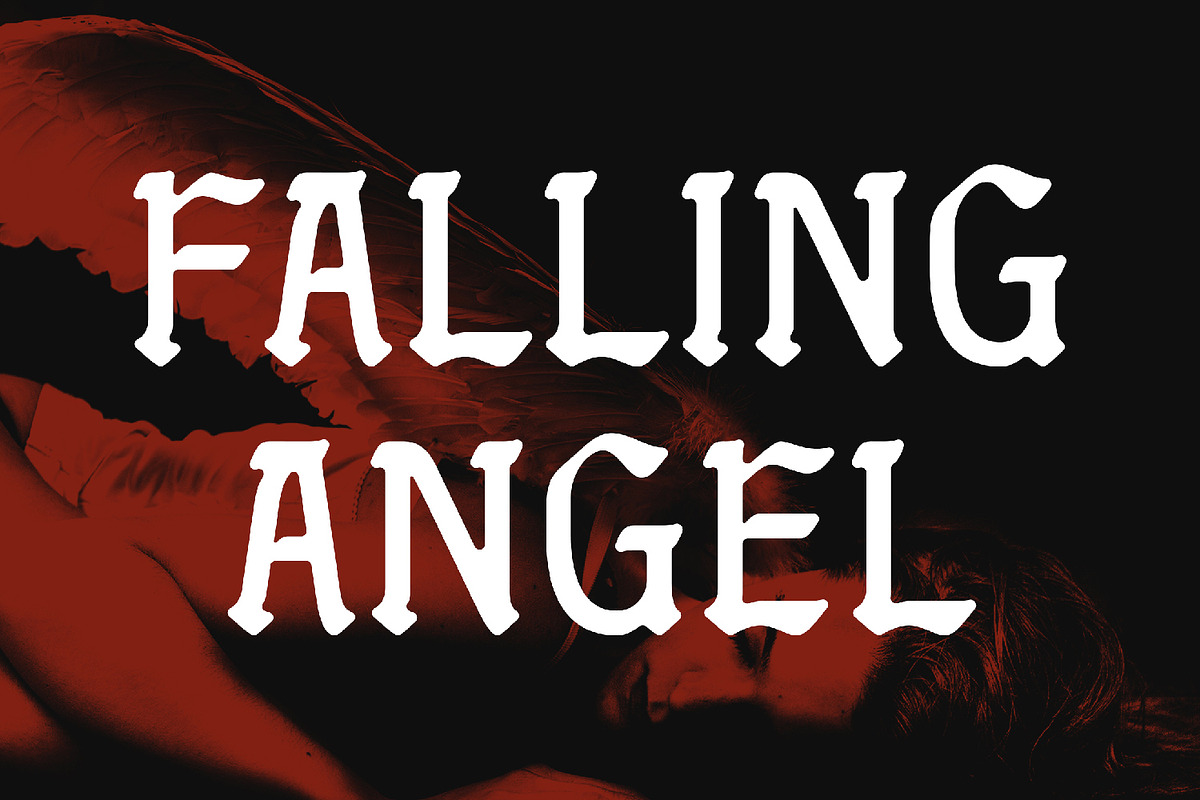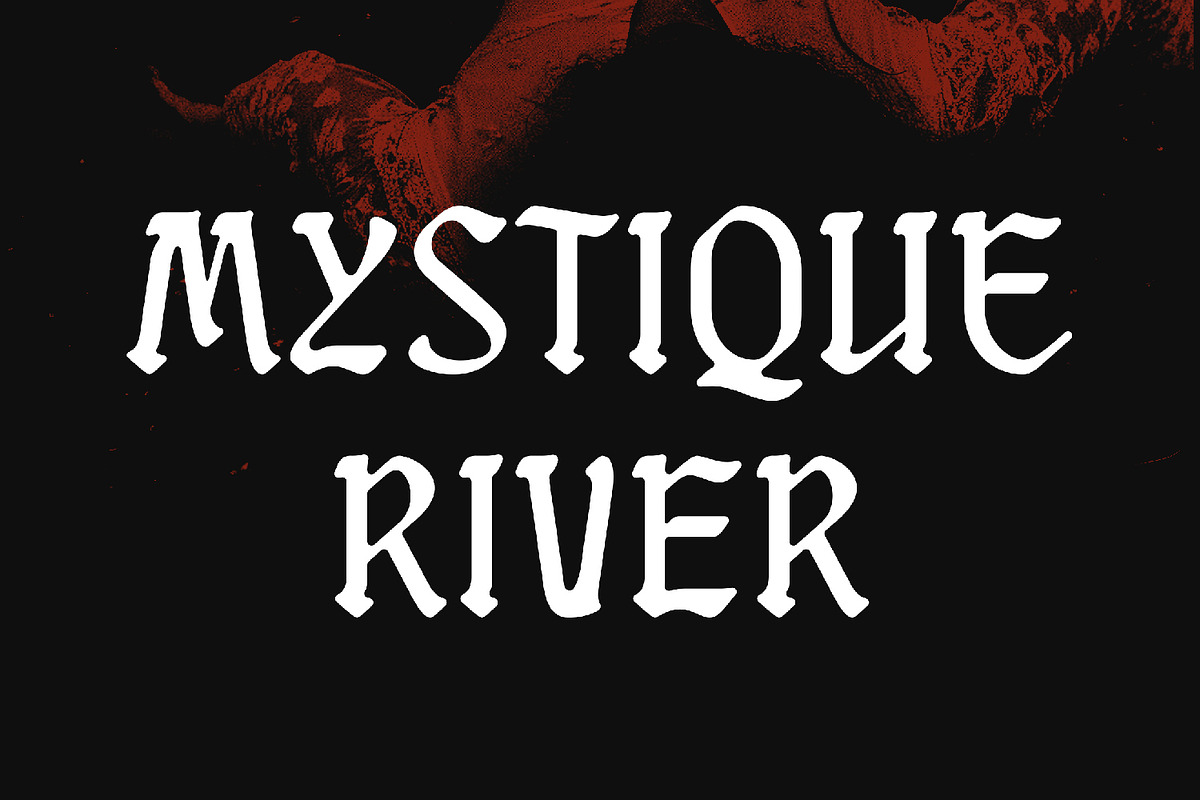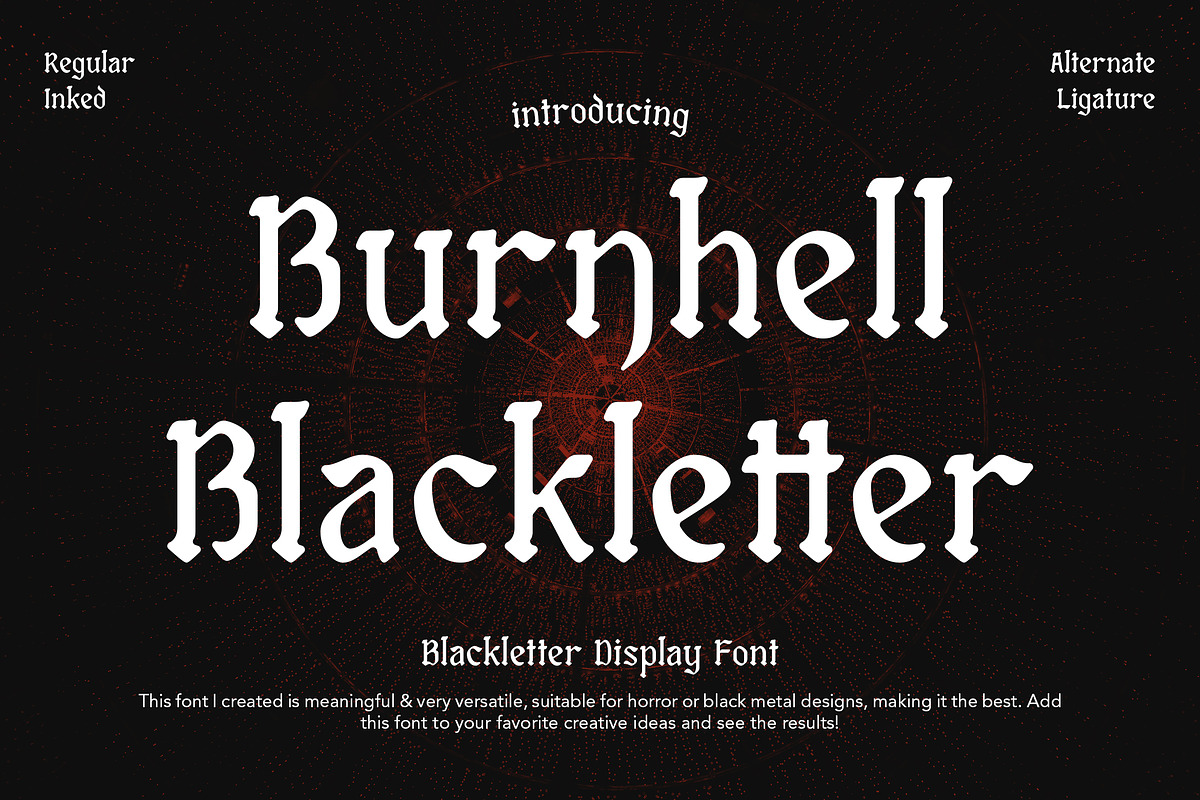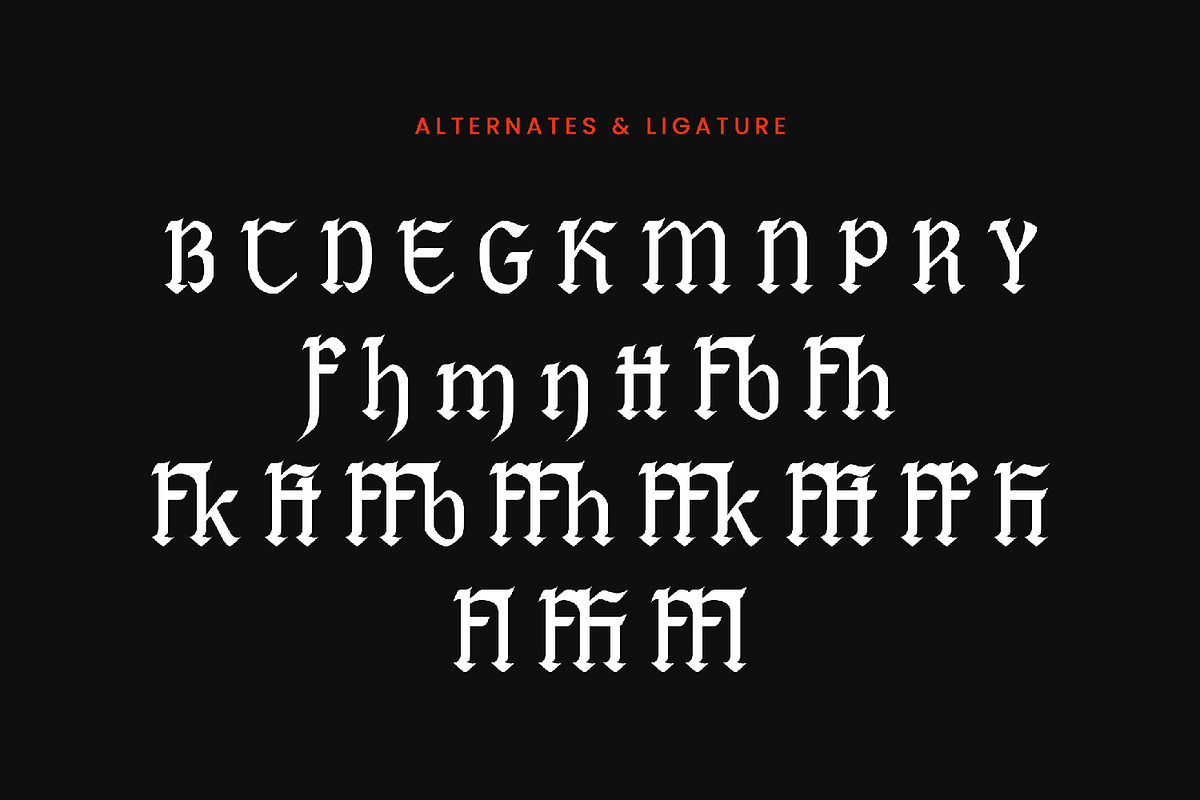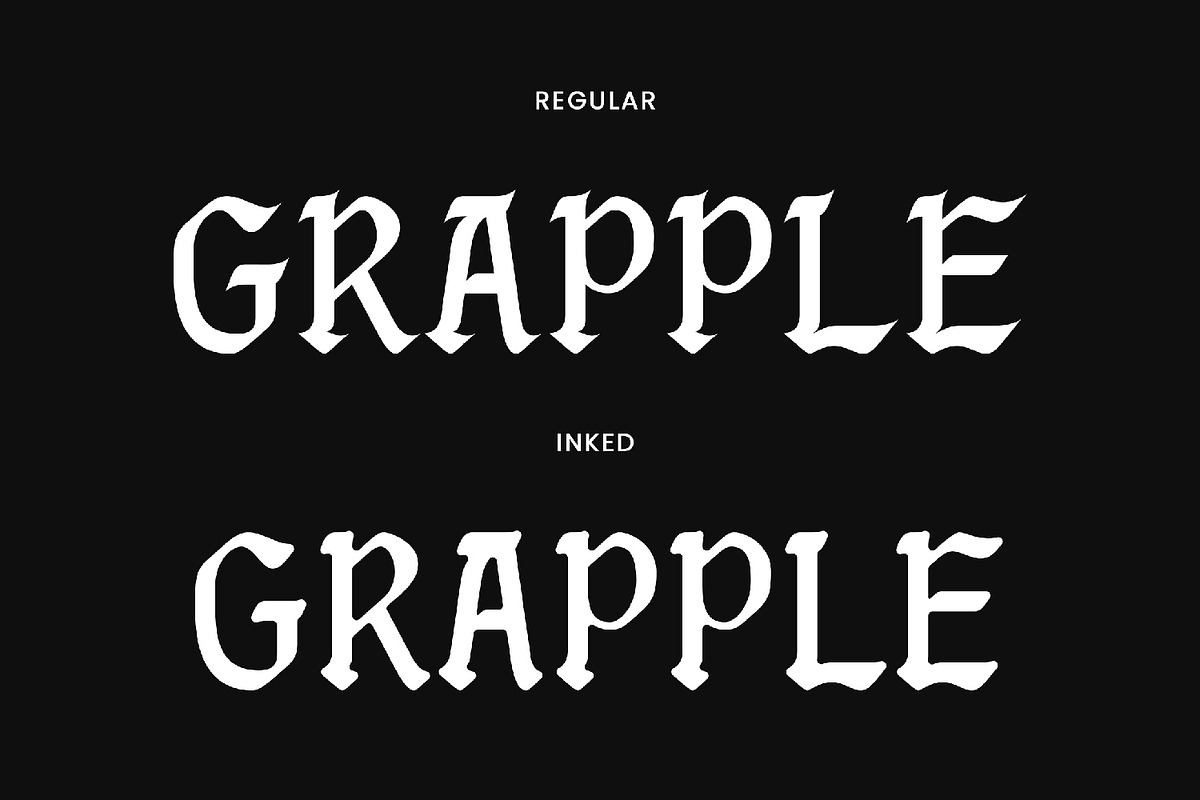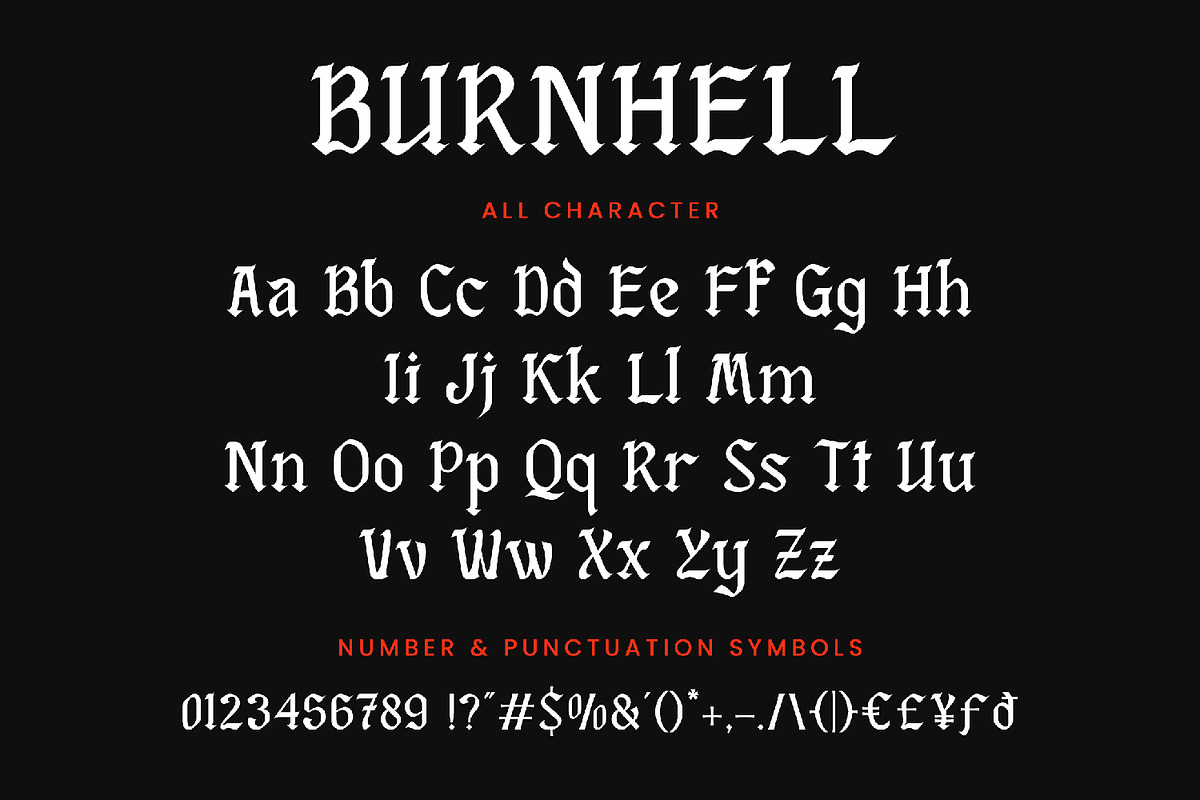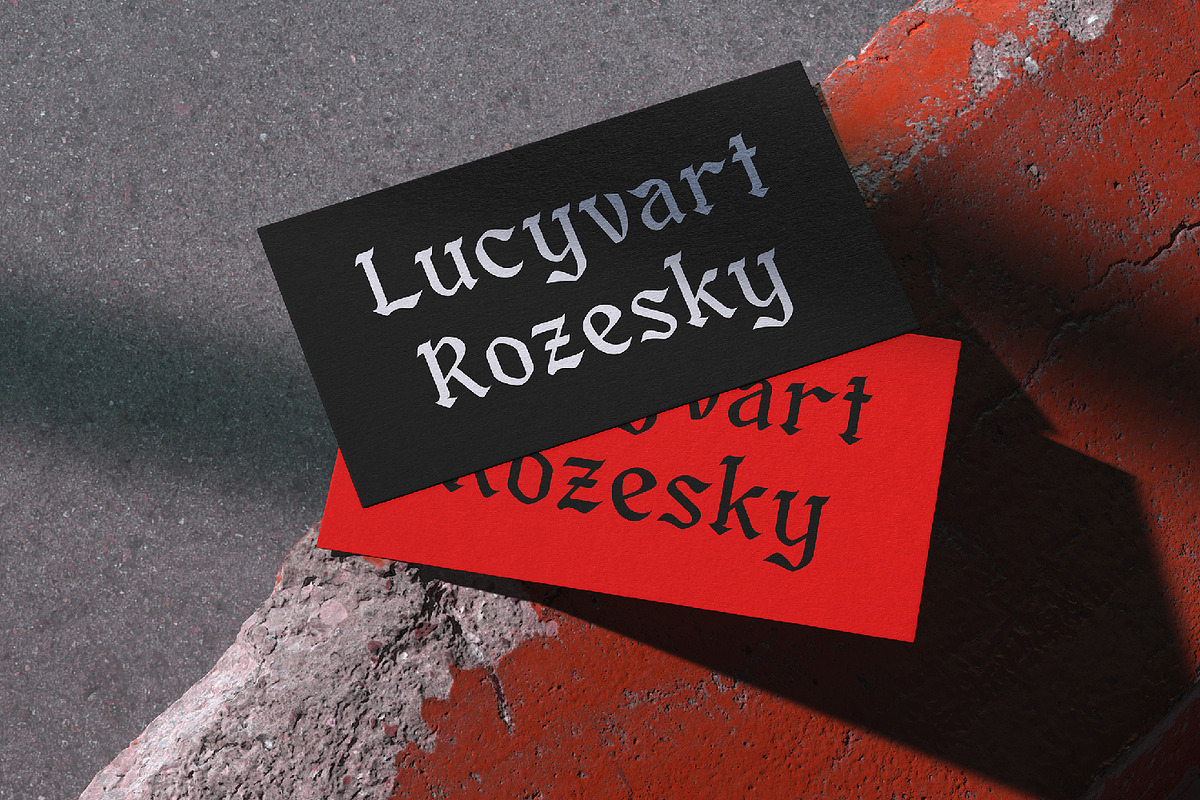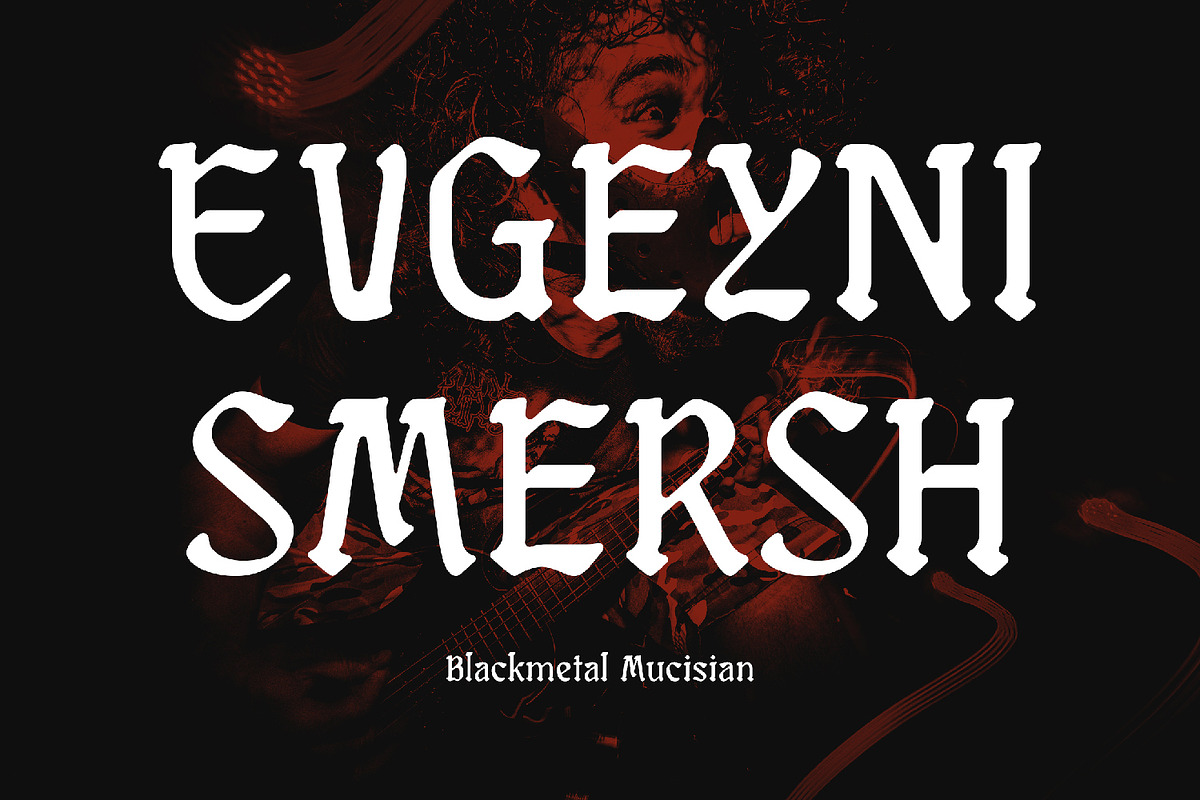
Burnhell - Blackletter Font
Burnhell - Blackletter Font contains a lowercase, uppercase, symbol, and also supports multi-language. There’s a lot of ligature in this font. Burnhell - Blackletter Font also comes with ligatures, stylistic alternates and many more. this font suitable for fashion, branding, catalog and other design that you want.